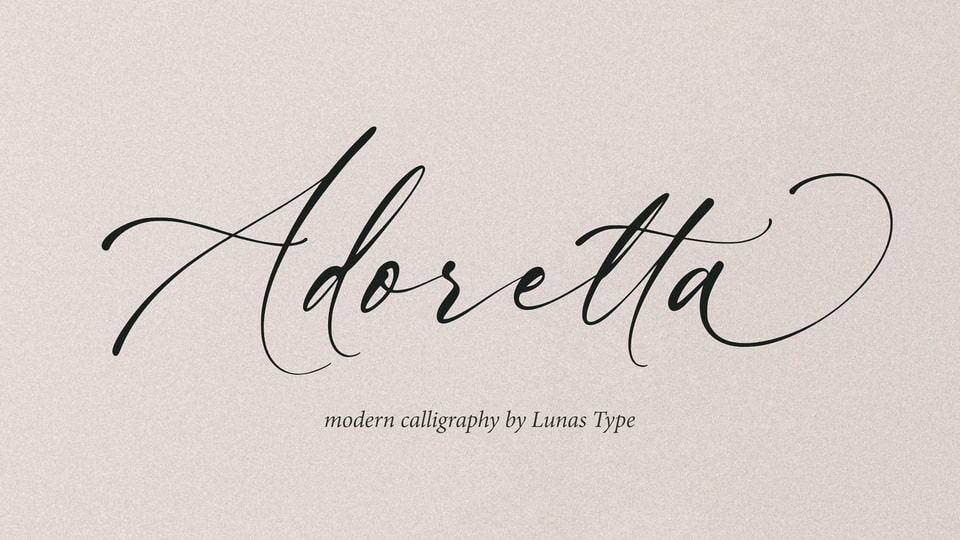
Download Adoretta font, an elegant and chic calligraphy typeface with natural flow and feminine style. Each letter is deliberately imperfect to make Adoretta font look more natural and charming.
Designer: Lunas Type